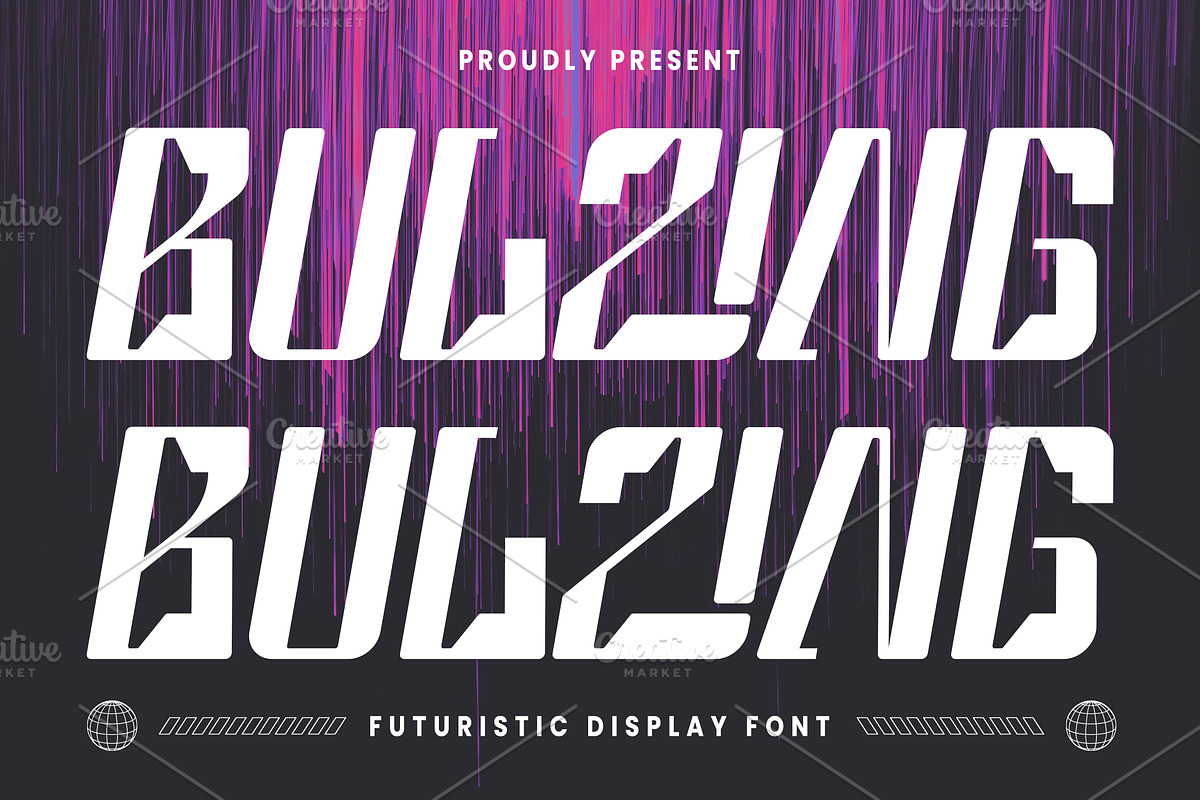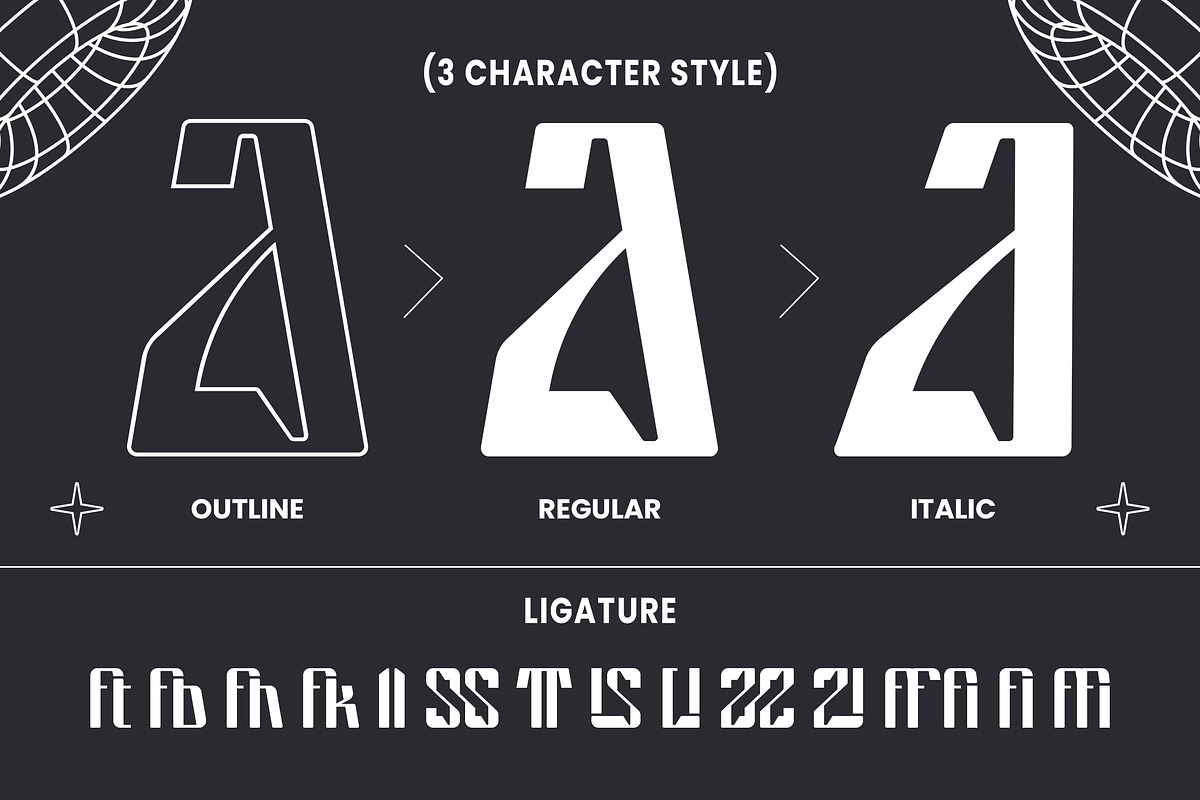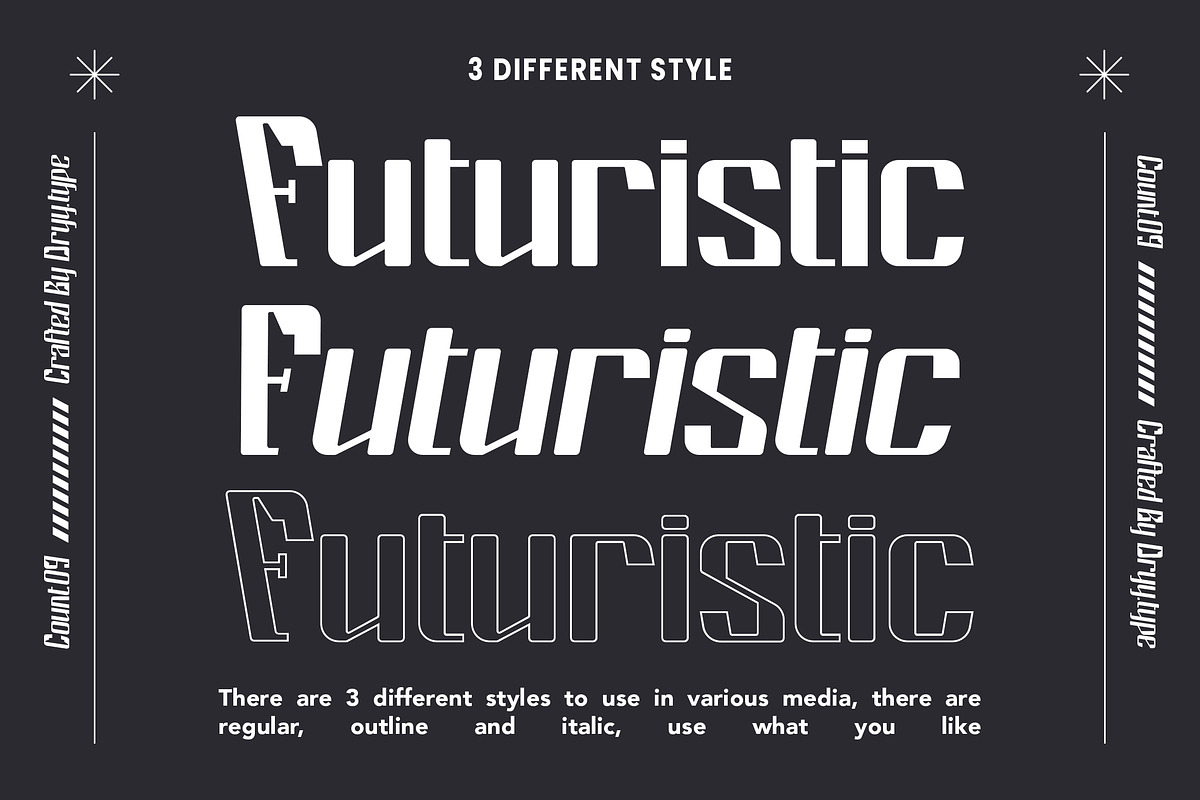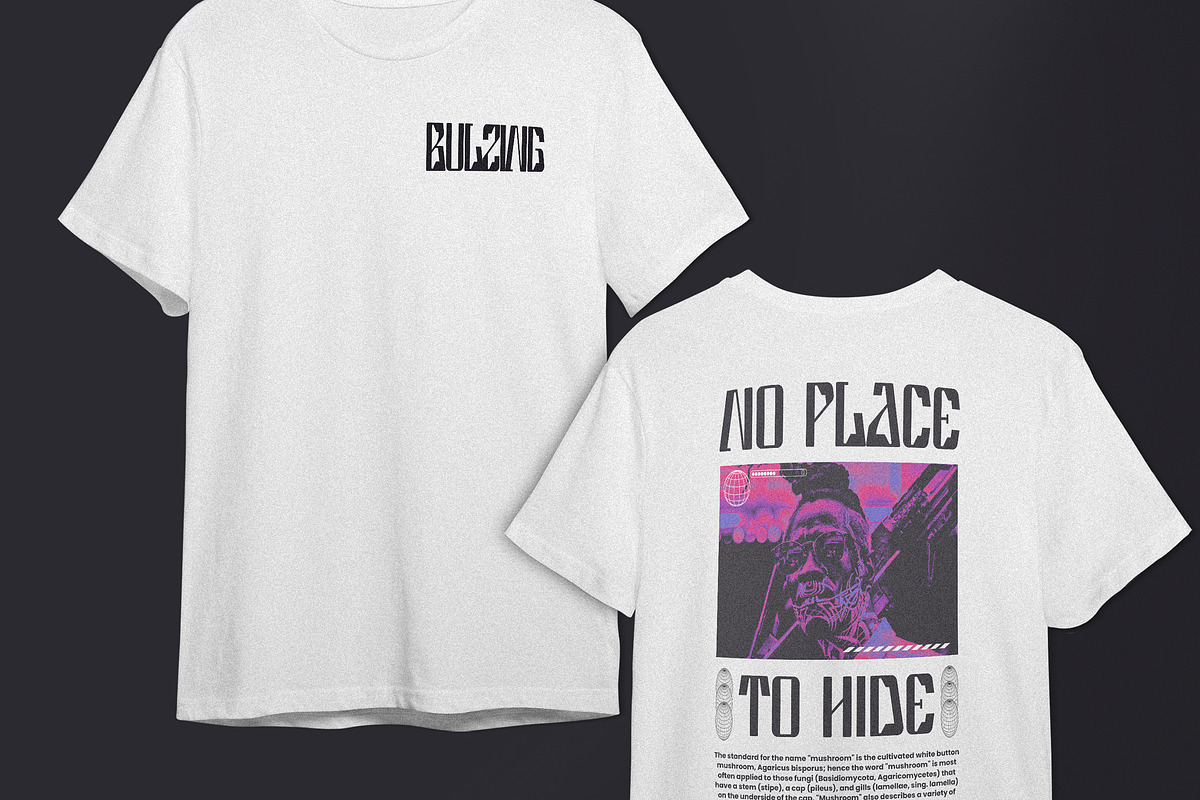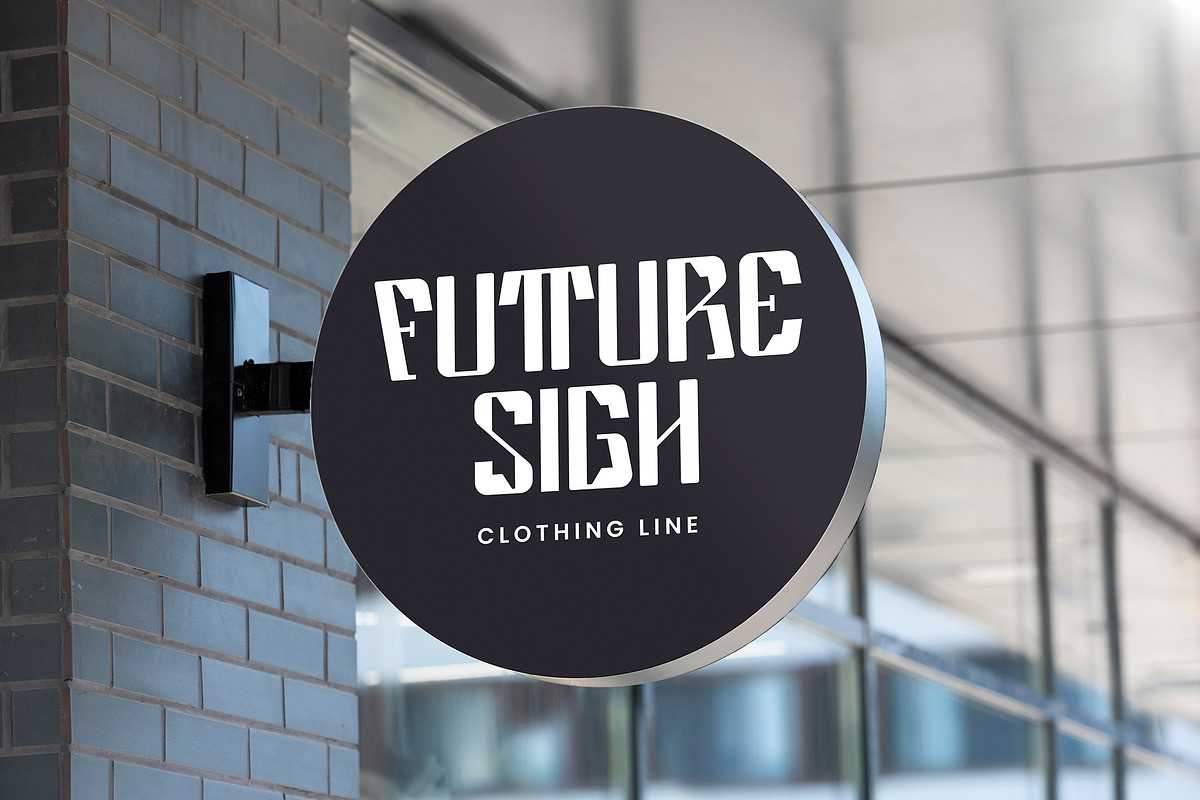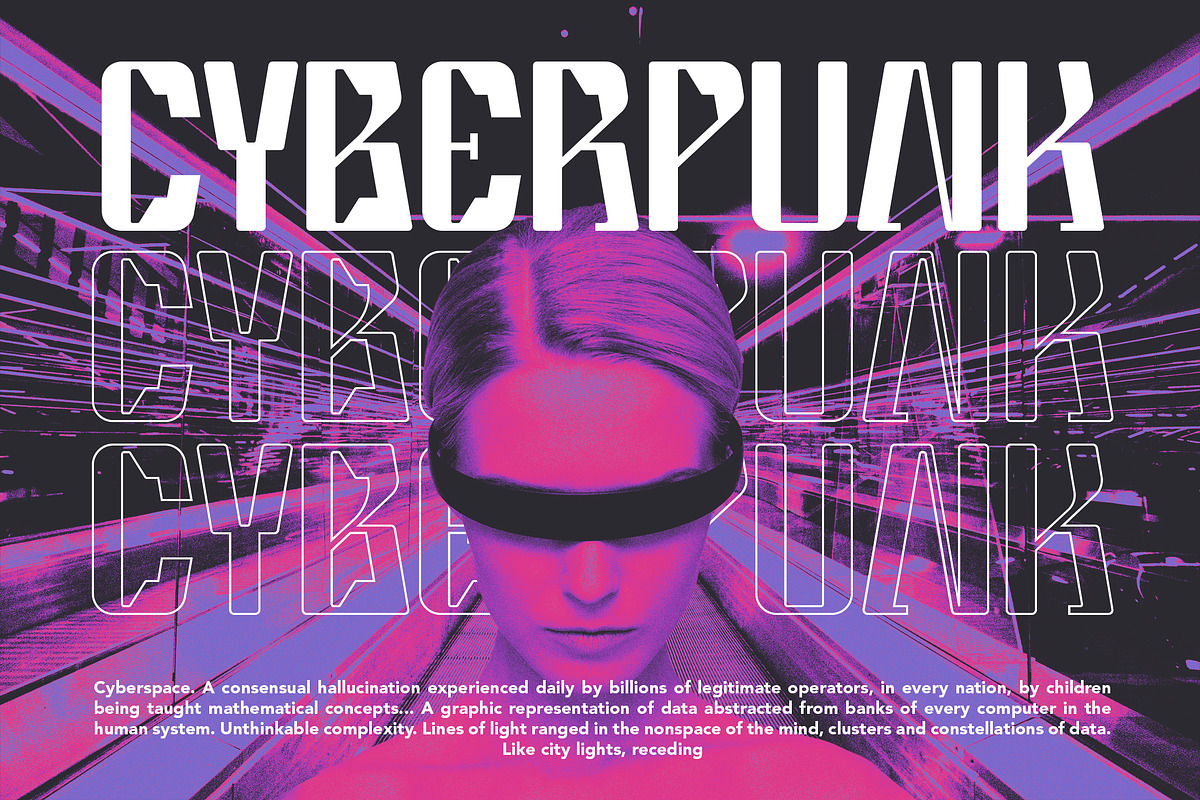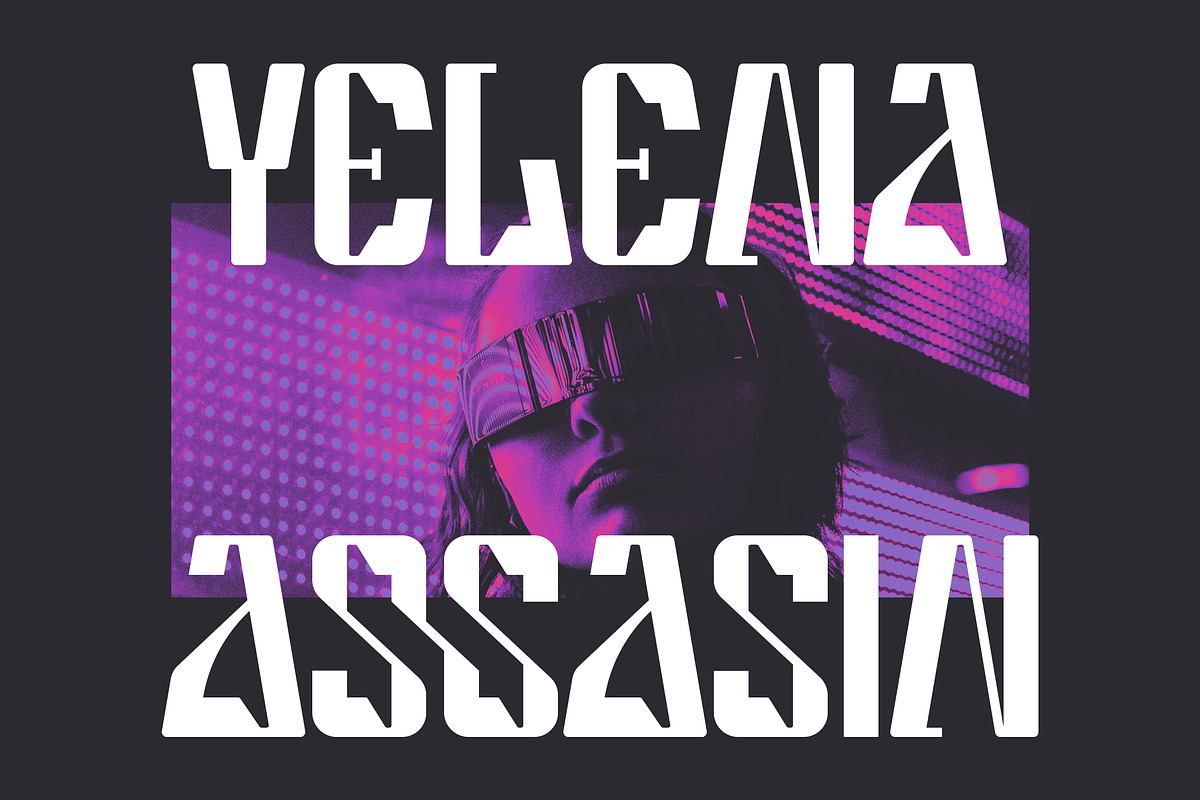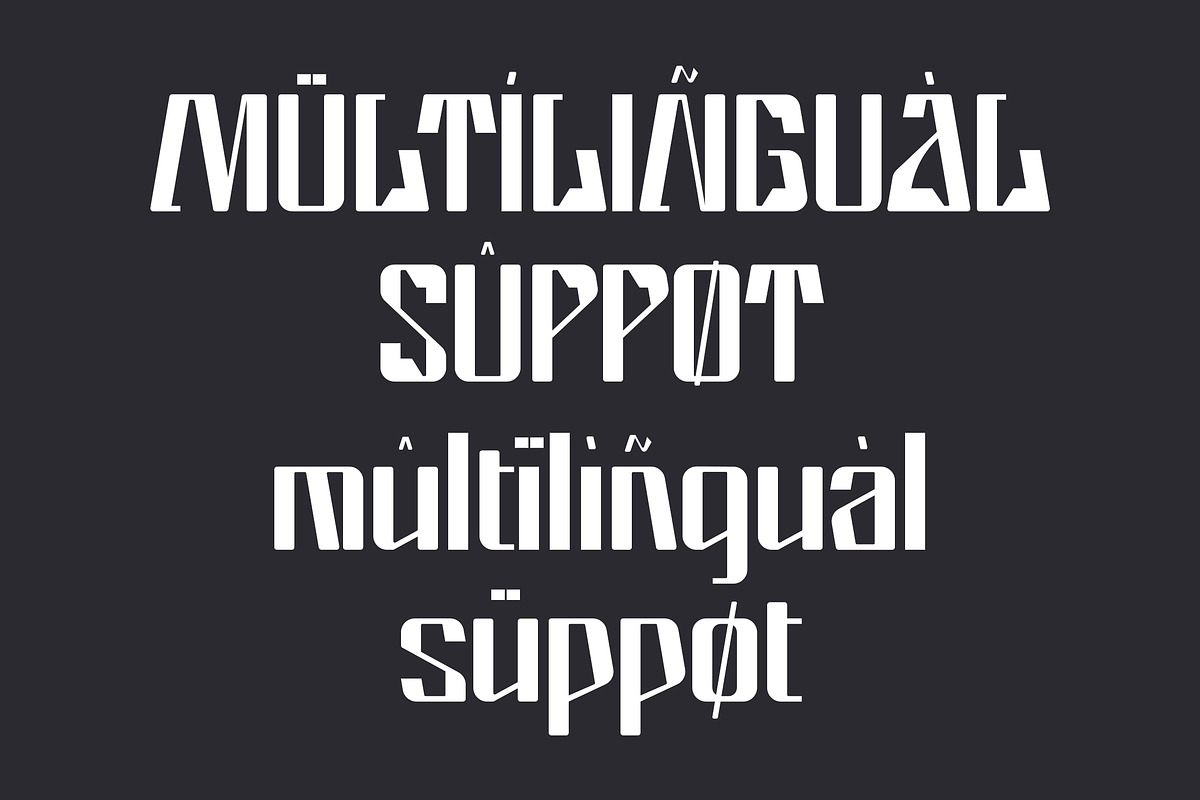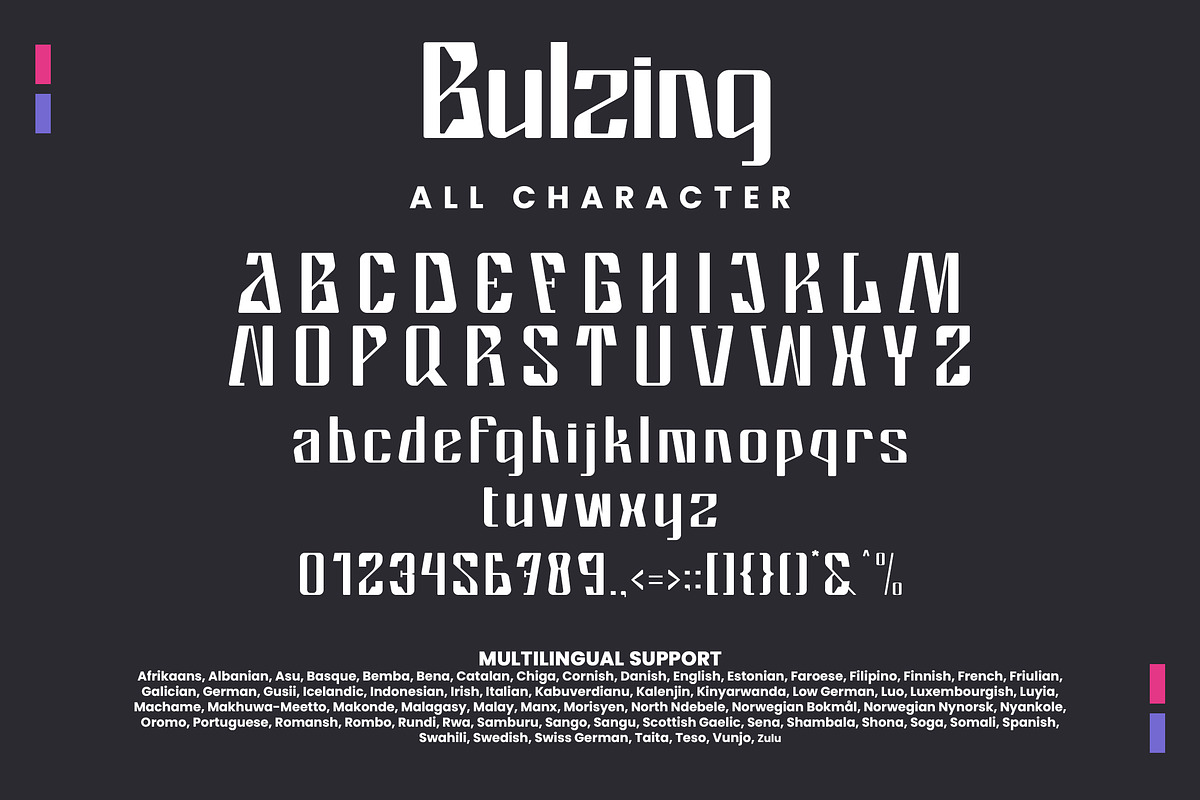
Bulzing - Futuristic font
Bulzing font is, as the name suggests, a modern and futuristic looking font. This font I created has been very much used this year & is very versatile, it goes well with a variety of designs, elevating it to the highest level. Add this font to your favorite creative ideas and see the results!
Features: uppercase, lowercase, ligature & multilingual There it is! I really hope you enjoy it